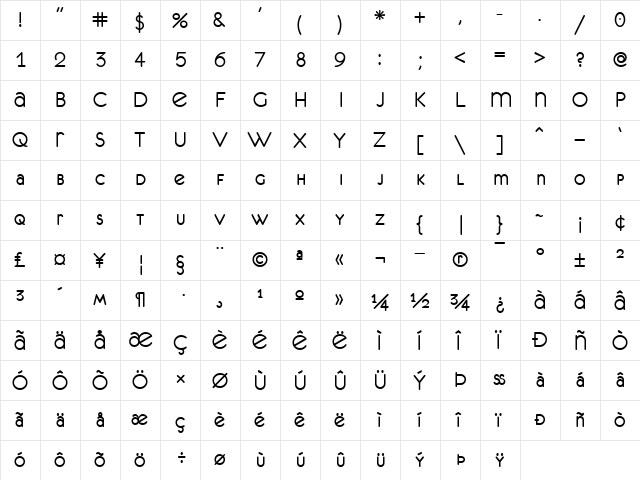
unifur Regular
Design Context for unifur Typeface
unifur offers clean, dependable letterforms without strong stylistic allegiance, making it a practical choice for designers who need flexibility.